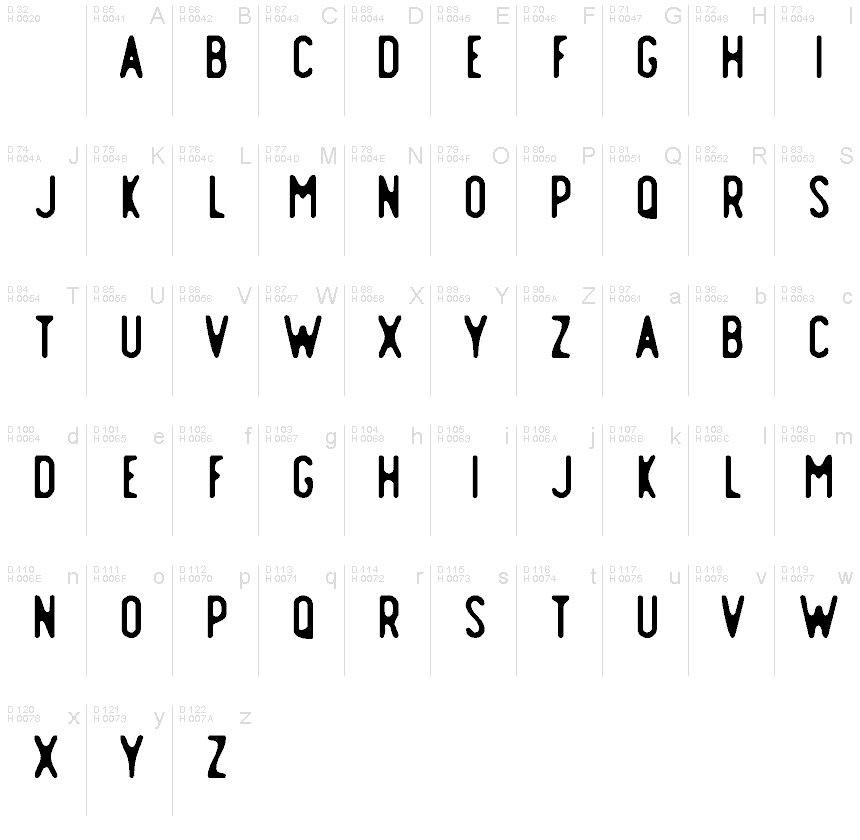
OfflanderBlur-Regular Demo
Offlander Blur font by Craft Supply Co. is a condensed sans serif with soft lines and geometric shapes inspired by tech, nature, and outer space. The free techno display font slightly transforms Offlander with its blurred curvy strokes for smooth simplicity while maintaining the wide letter “O” glyph and the overall round shape concept.
A lovely tech theme that you could use in posters, website headers, motion graphics titles, games graphics, advertising campaigns and promotions. Other eligible suggestions are social media posts, packaging design – especially snacks packages –, book covers (fantasy), logo design for related businesses or brands and other digital or printed projects.